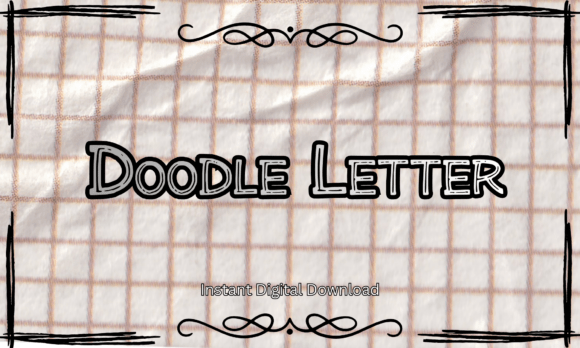
Add a Touch of Whimsy to Your Designs
Remember the joy of doodling in your notebooks as a kid? The messy lines, the imperfect shapes, and the freedom to create without a care in the world? As adults, we can still tap into that carefree spirit with the Doodle Letter Font – a delightful, hand-drawn style font that captures the essence of casual handwriting and creative doodles.
Perfect for adding a personal touch to your projects, Doodle Letter Font is a versatile tool that can elevate your planner stickers, journal pages, and classroom materials with its cozy, artsy feel. Whether you’re a seasoned designer or a DIY enthusiast, this font is a valuable addition to your creative arsenal, allowing you to bring a touch of handmade charm to your work.
Doodle Letter Font Key Features
- Unique Characteristics: The Doodle Letter Font features a playful, handwritten style with a mix of rounded and pointed letters, giving it a unique and creative look.
- Legibility: Despite its playful style, the font is highly legible and easy to read, making it suitable for use in body text as well as headings and titles.
Doodle Letter Font Review
I recently had the chance to play around with the Doodle Letter Font, and I have to say, I have mixed feelings about it. On the one hand, there are some aspects that I genuinely enjoy.
- ✨ The font’s playful, hand-drawn feel is perfect for adding a touch of whimsy to your designs.
- ✨ The Doodle Letter Font is highly customizable, with a wide range of options for adjusting line width, color, and spacing.
- ✨ The font is also surprisingly legible, making it suitable for body text as well as headlines.
However, I also encountered some limitations that might make it less appealing to some users.
- ⚠️ The font can be a bit overwhelming when used in large quantities, as the doodly lines can start to feel chaotic.
- ⚠️ Some characters may not render correctly in certain contexts, such as in combination with certain fonts or at small font sizes.
- ⚠️ The font’s customizability can also be a double-edged sword, as it can be tricky to find the right balance between creativity and readability.
Overall, I think the Doodle Letter Font is a great choice for projects that require a playful, creative vibe. However, it may not be the best fit for more formal or professional designs.
Tips for Getting the Most Out of Doodle Letter Font
Experiment with different doodle letter combinations and styles to achieve a unique look.
Use the Doodle Letter Font in conjunction with other design elements, such as images and graphics, to add visual interest.